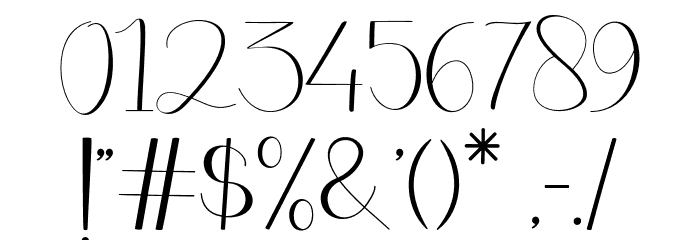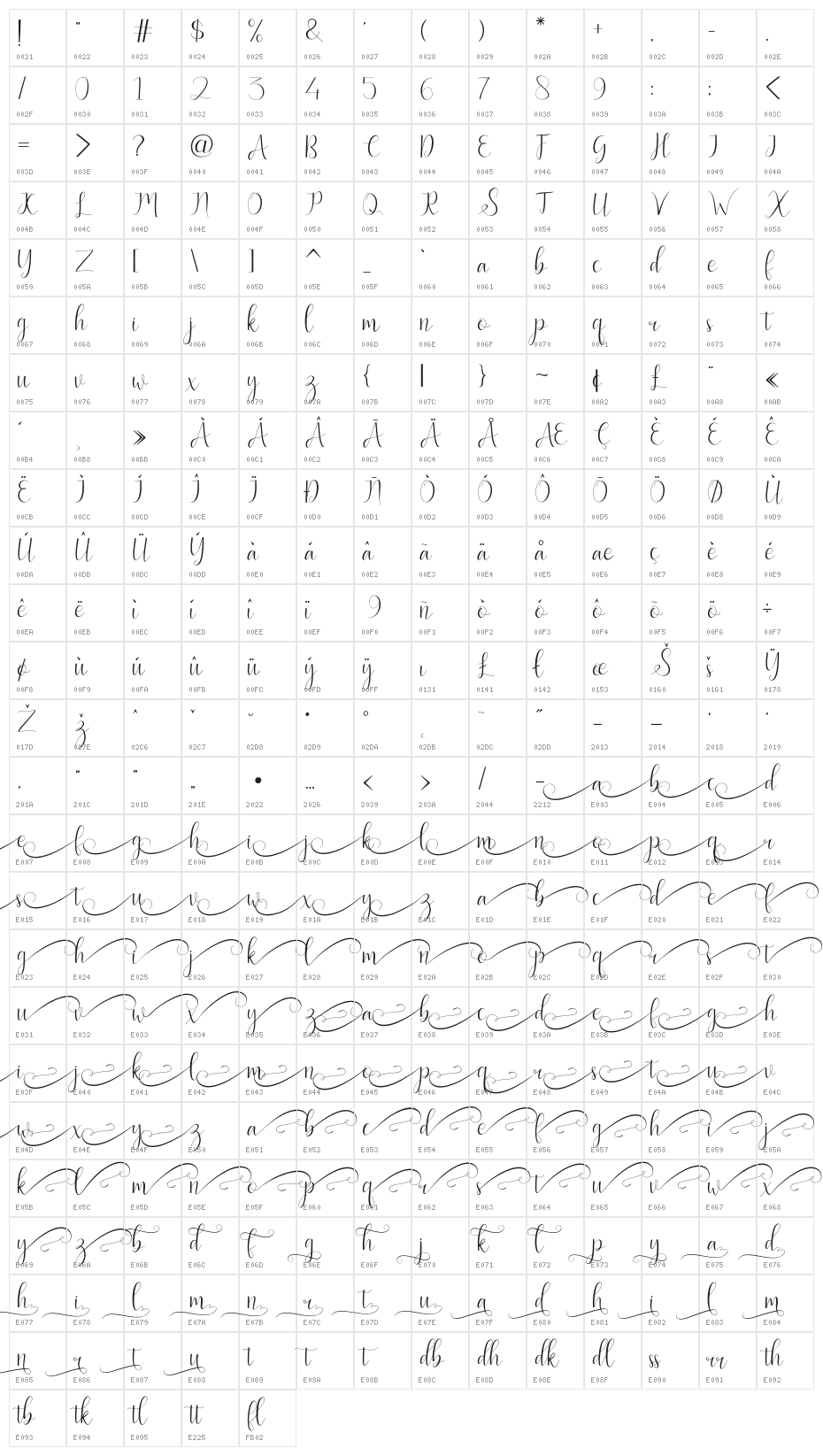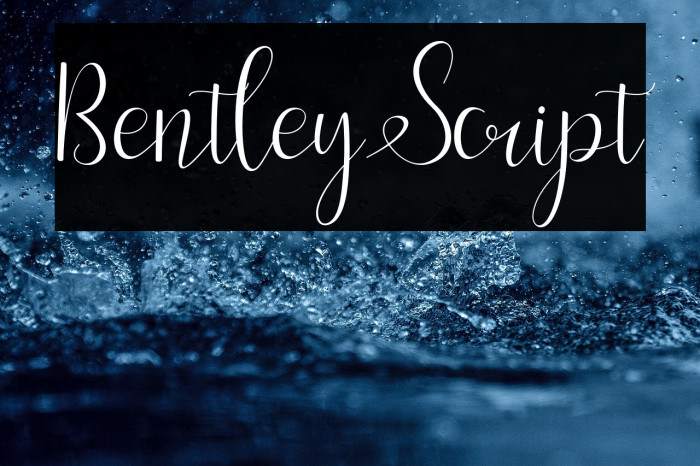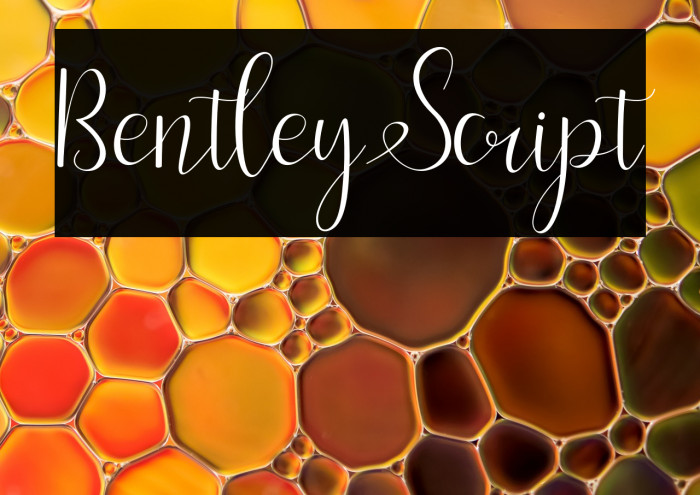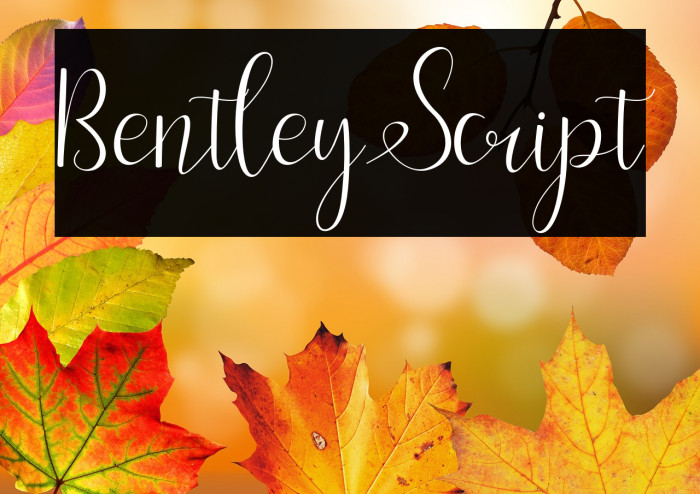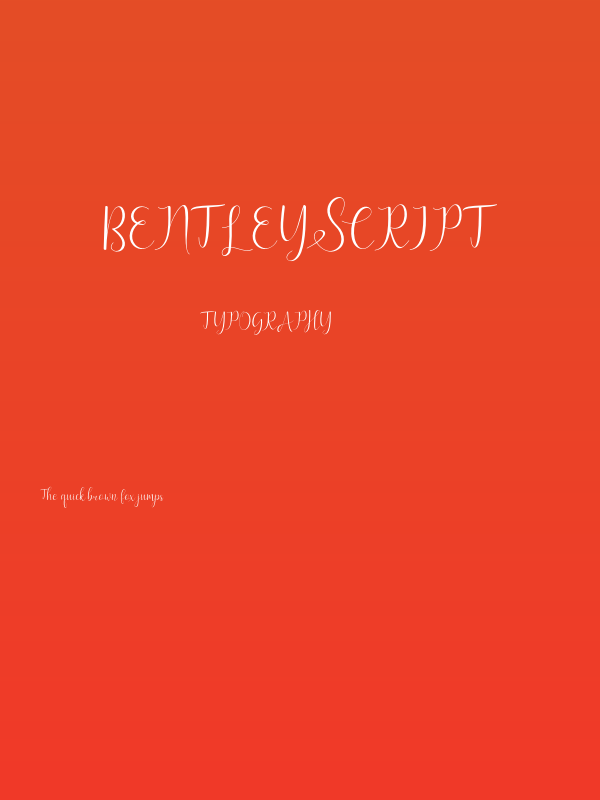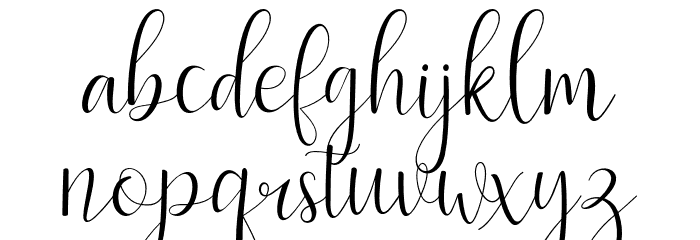
BentleyScript Font
BentleyScript Description
This elegant script font features a flowing, cursive style with high contrast between thick and thin strokes. The uppercase letters are tall and graceful, with sweeping curves and delicate loops that convey a sense of sophistication and elegance. The lowercase letters maintain a consistent style, with smooth connections and fluid lines that enhance readability while retaining a decorative flair. The numerals are distinct and stylish, complementing the overall aesthetic of the font. Special characters are thoughtfully designed to match the script's elegance, making it suitable for a variety of formal and creative applications.
Overall StyleElegant
Use CaseLogos, Invitations, Branding
Proposed ProjectsIdeal for wedding invitations, elegant branding, luxury packaging, and formal event materials.